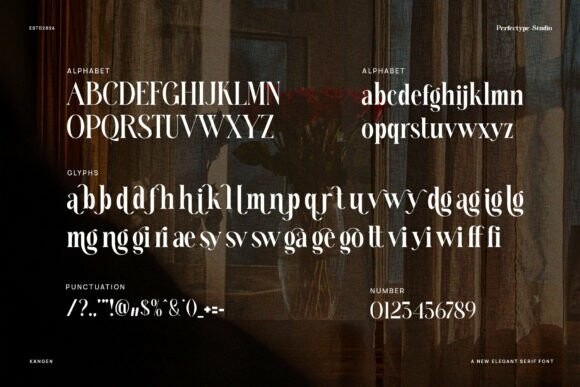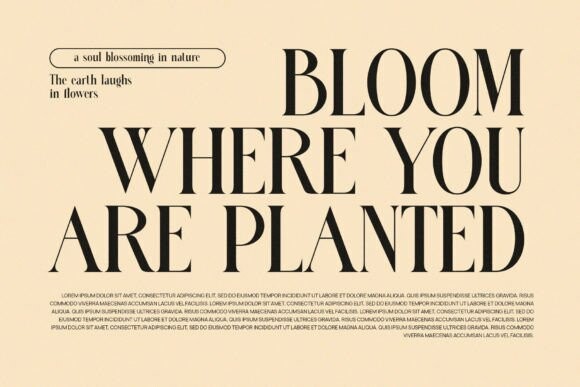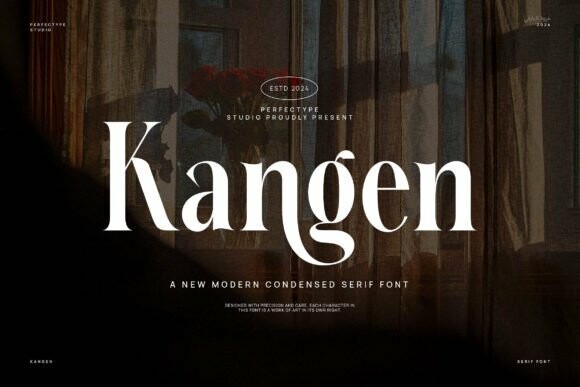
Kangen Font
Designer: Perfectype
Kangen Font is a beautiful and light serif font with a unique feel and a stunning impact. It will add a luxury spark to any design project that you wish to create! This font is PUA encoded which means you can access all of the amazing glyphs and ligatures with ease!